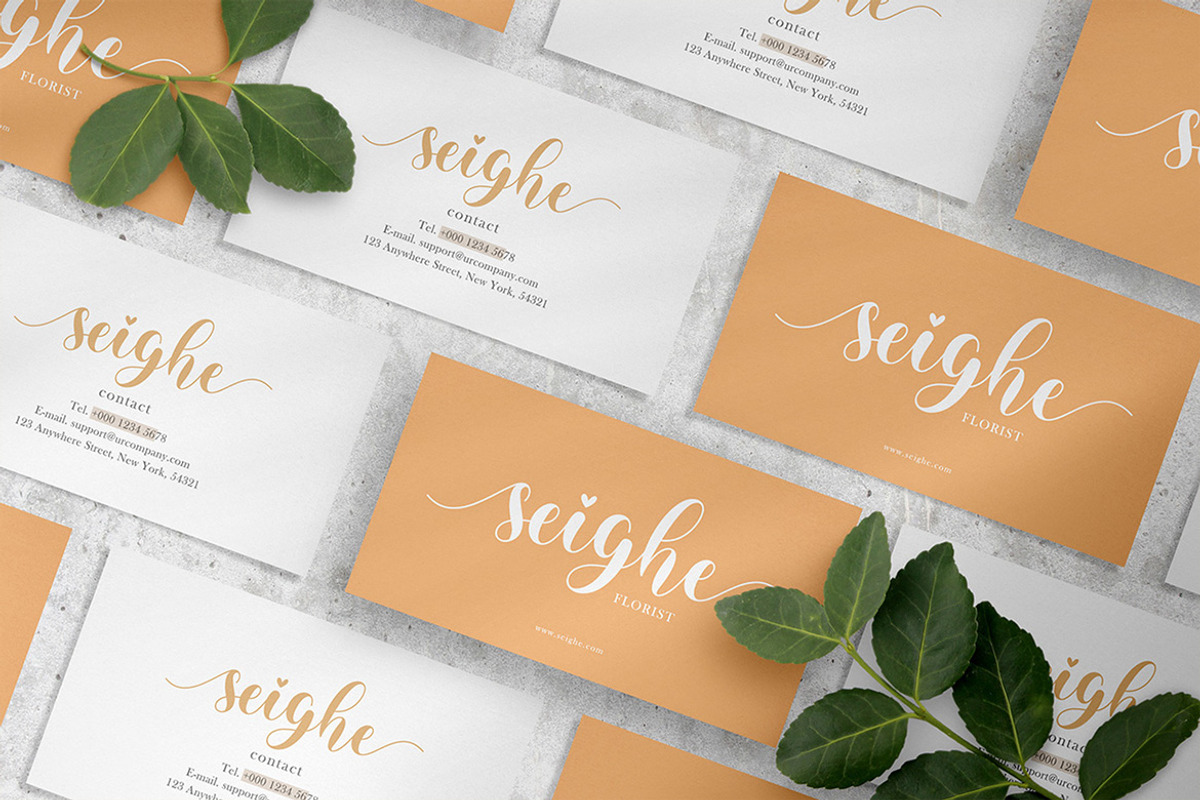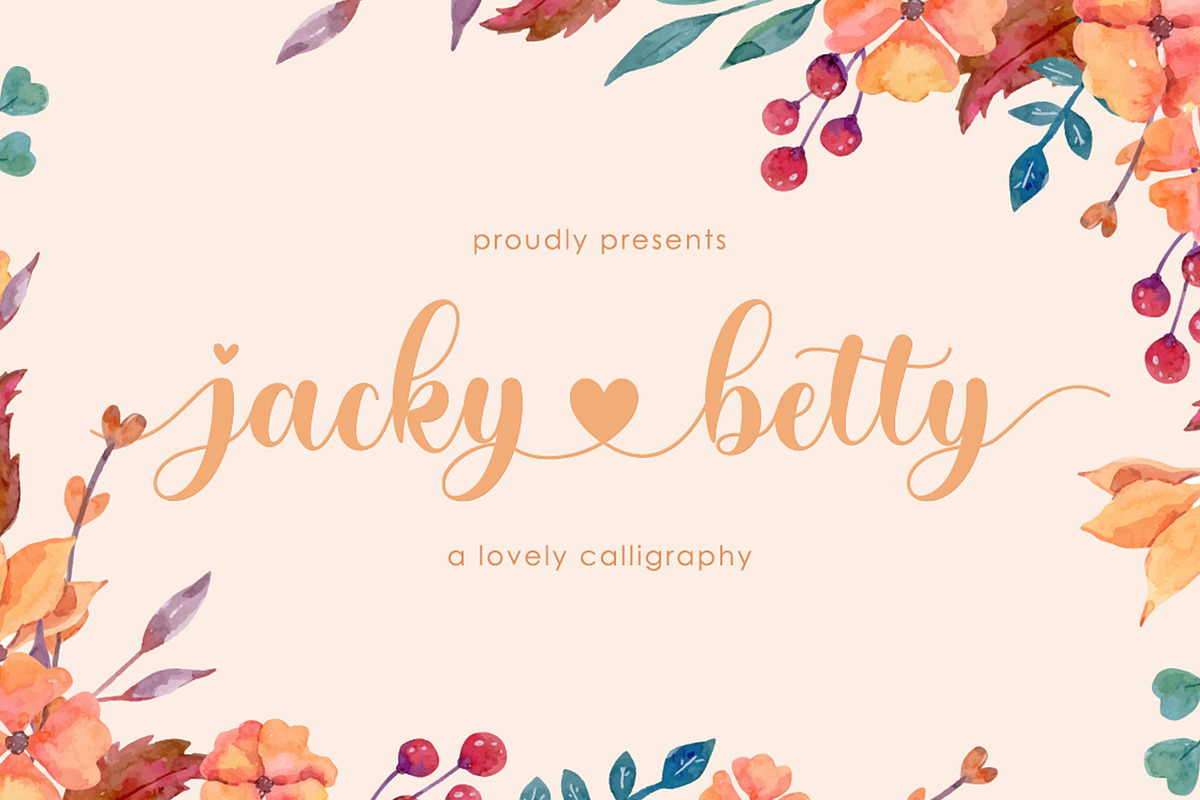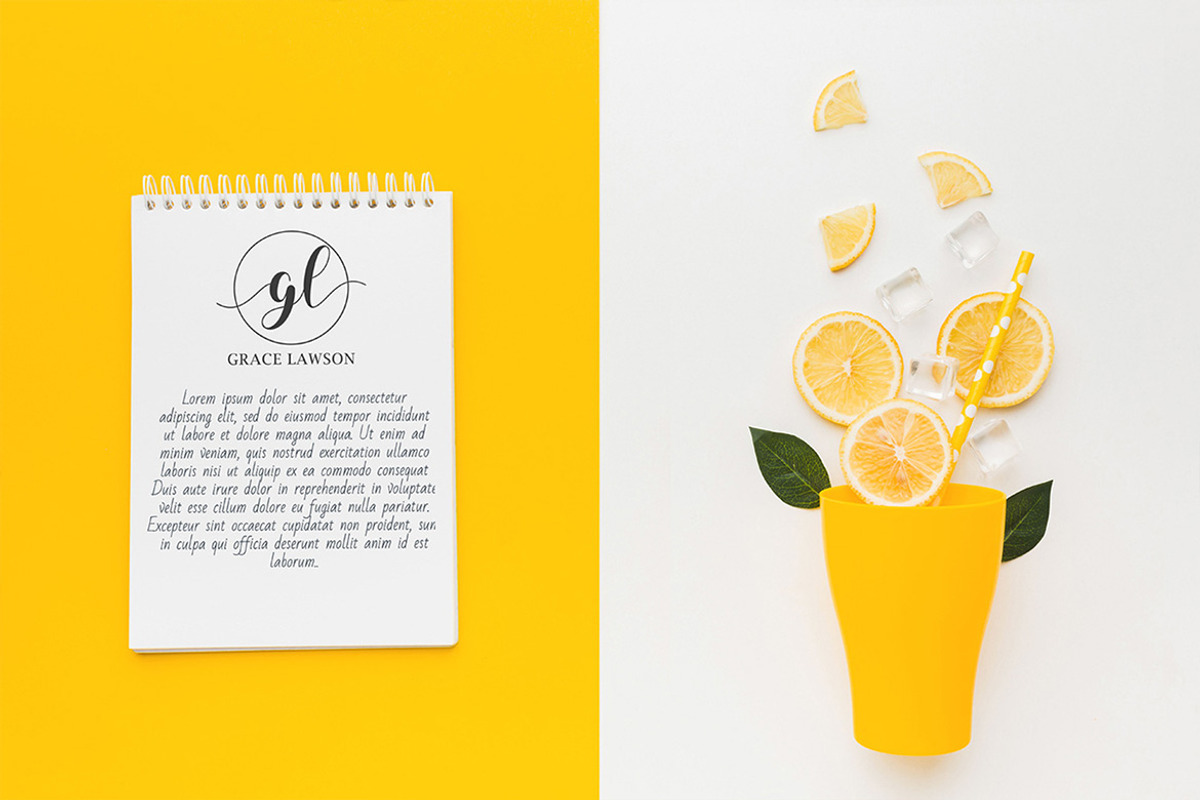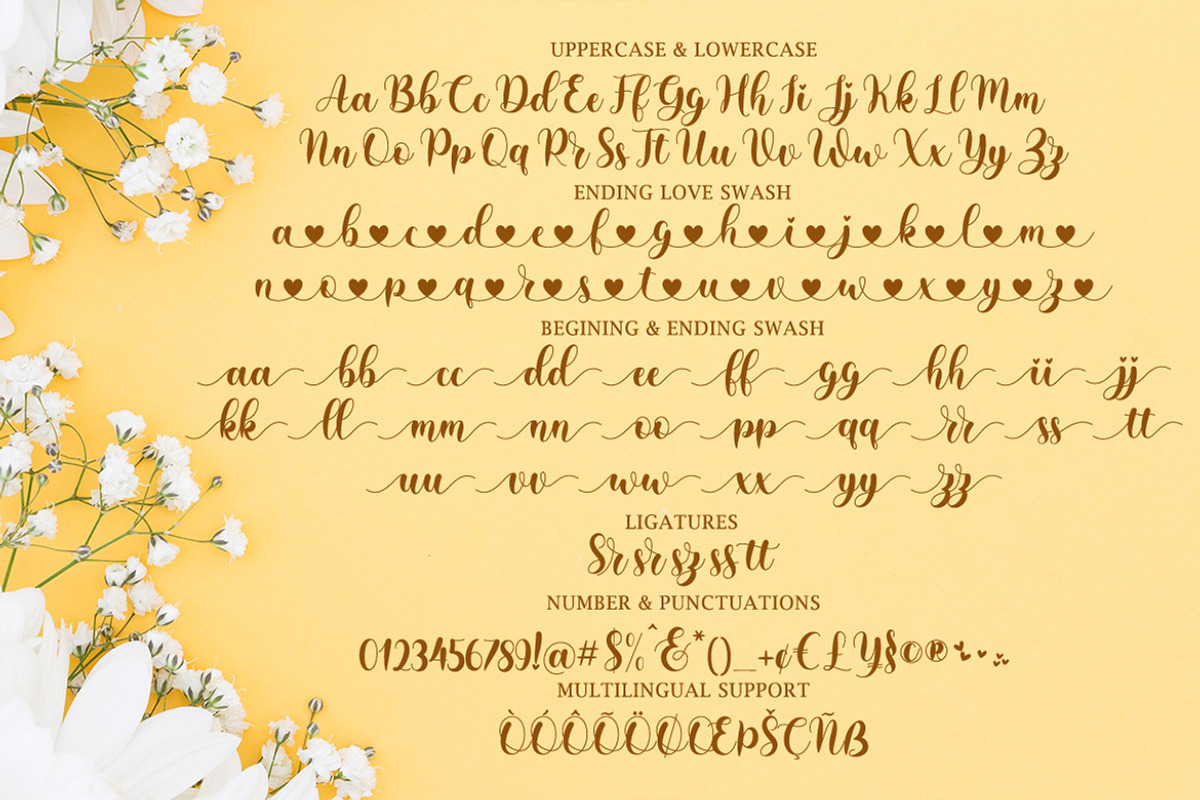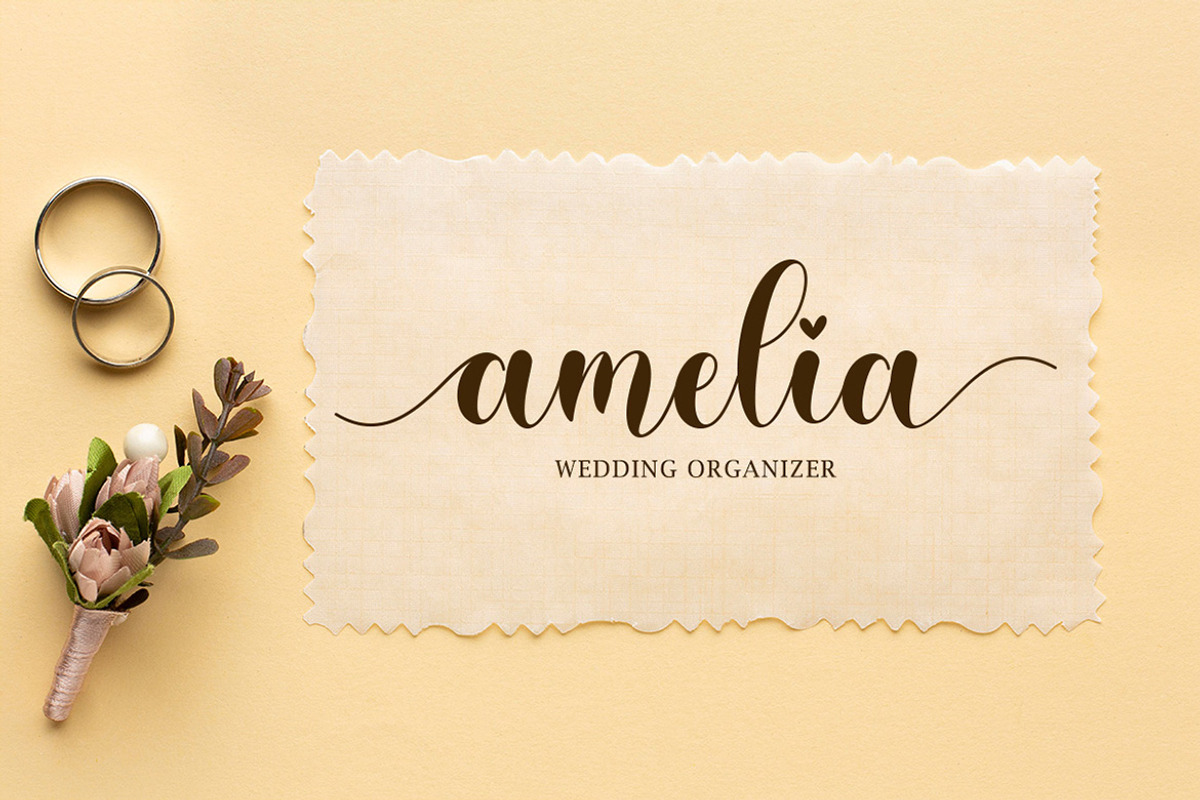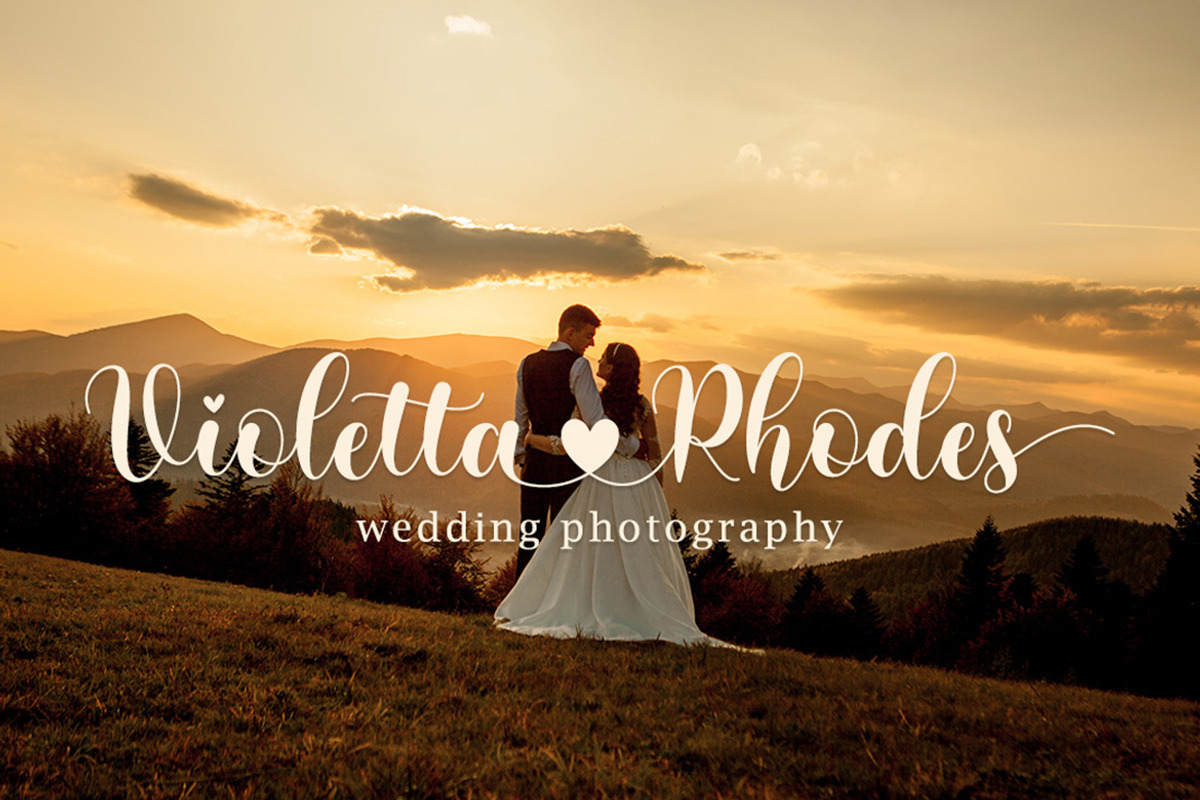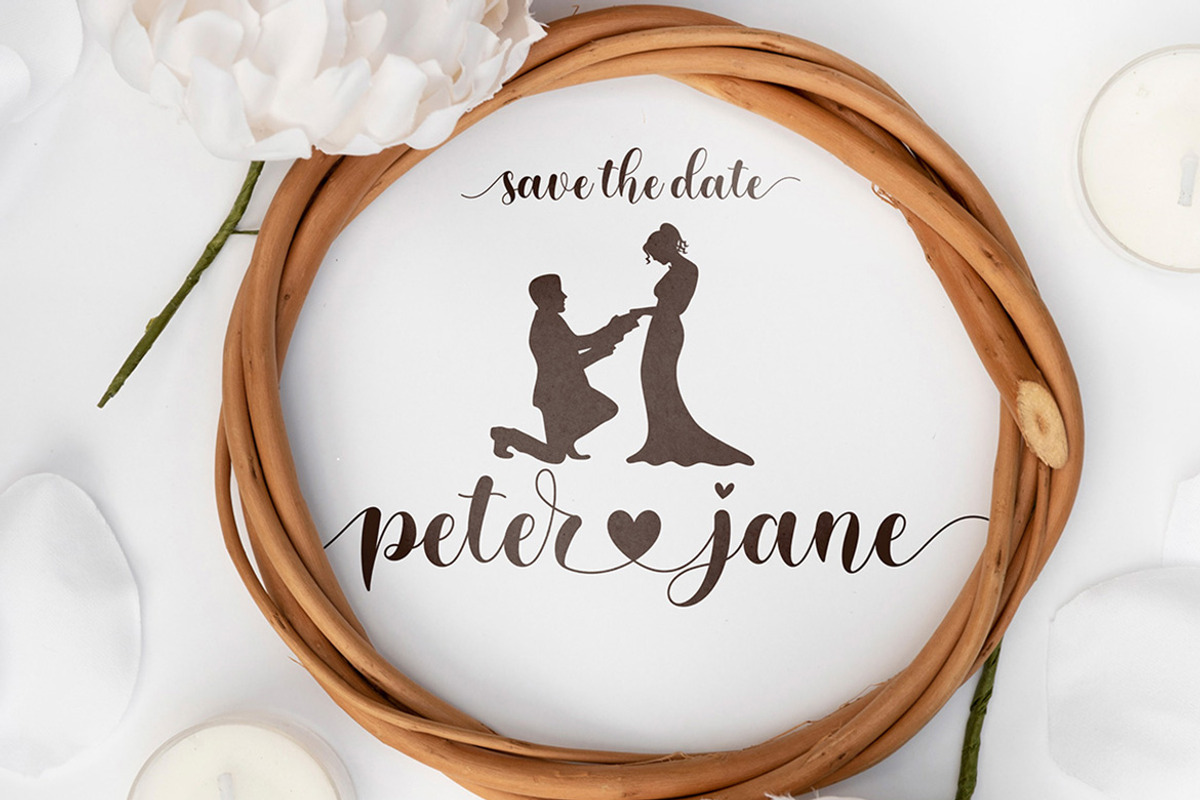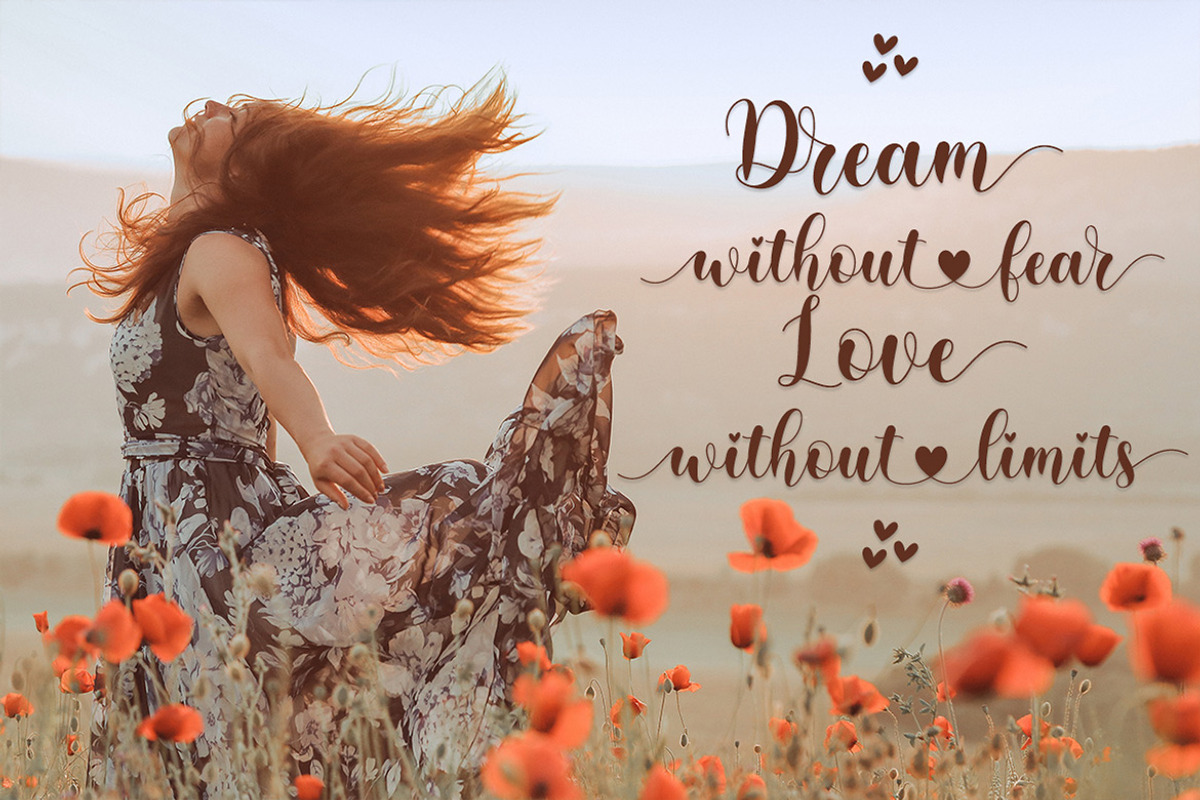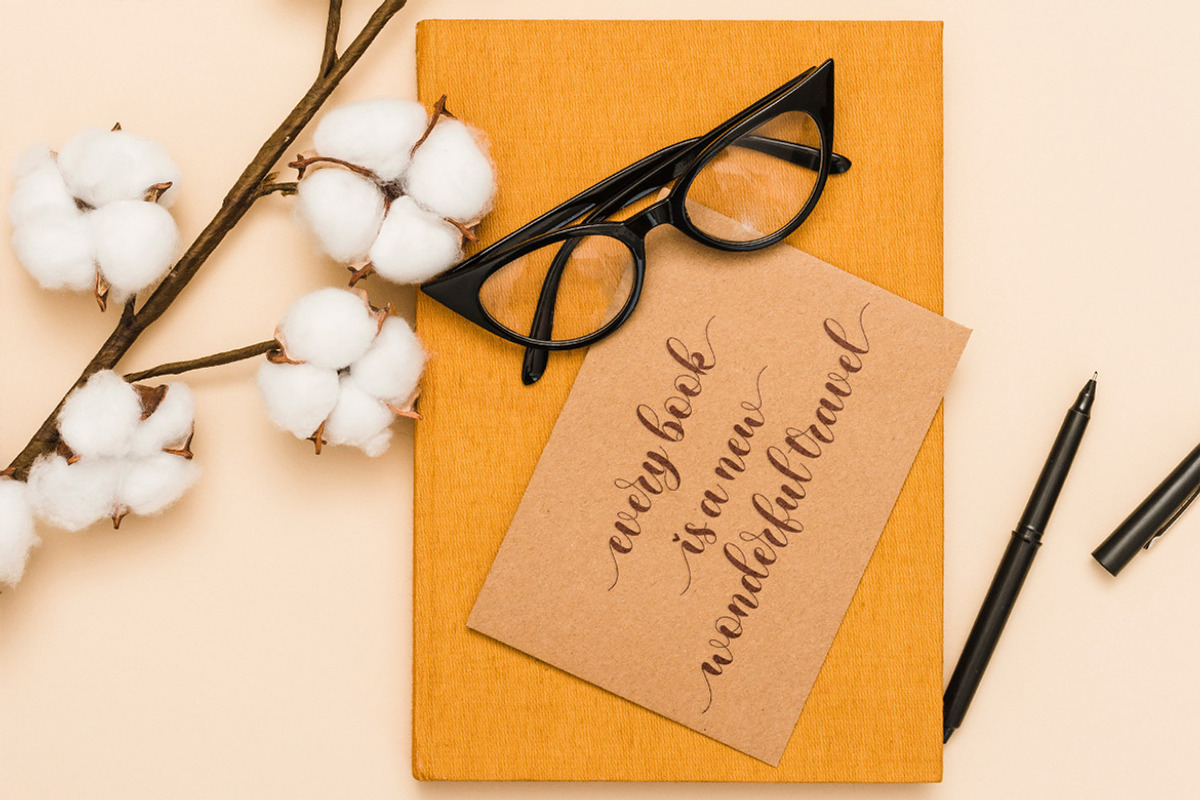
Jacky Betty | Lovely Calligraphy
Jacky betty is a lovely script font with heart swash, this font looks natural, elegant and perfect for any extraordinary project.jacky betty is suitable for various products such as invitations, product packaging, quotes, product design, crafter, labels, photography, watermarks, logos, branding and other romantic projects.